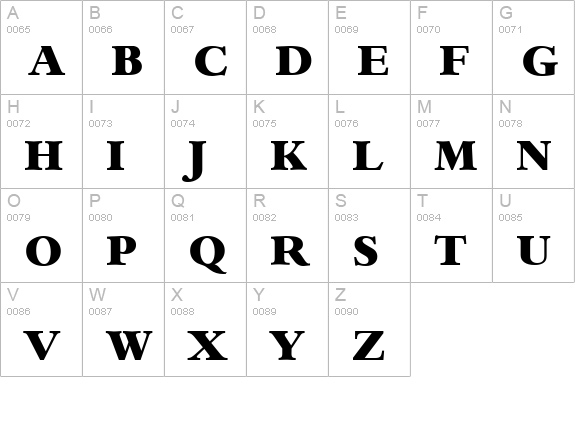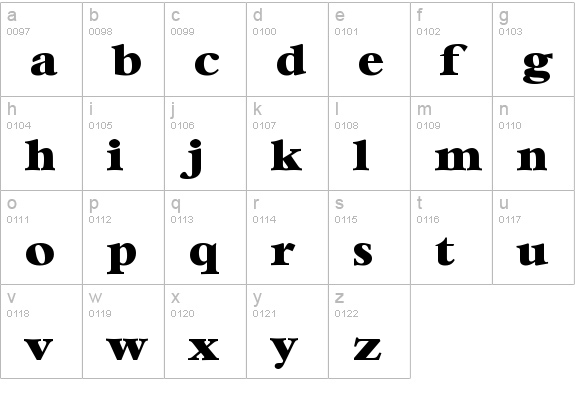
BernsteinSerial-Heavy-Regular is a heavy, high-impact variant in the BernsteinSerial typeface family \xE2\x80\x94 well suited to high-impact headlines, posters, and display advertising.
BernsteinSerial-Heavy-Regular is a bold and sturdy font that commands attention with its strong presence. Its distinct and modern design makes it perfect for headlines, titles, and branding materials. The clean lines and balanced letterforms give this font a professional and polished look. Designed for maximum impact, BernsteinSerial-Heavy-Regular is versatile enough to be used across a variety of design projects, from posters to packaging to websites. Its readability and clarity ensure that your message will be conveyed effectively to your audience. Best of all, BernsteinSerial-Heavy-Regular is available for free download at FontsMarket.com. Now you can add this striking font to your collection without any cost, making it a valuable asset for your design projects. Don't miss out on this opportunity to enhance your creations with the bold and impactful BernsteinSerial-Heavy-Regular font.